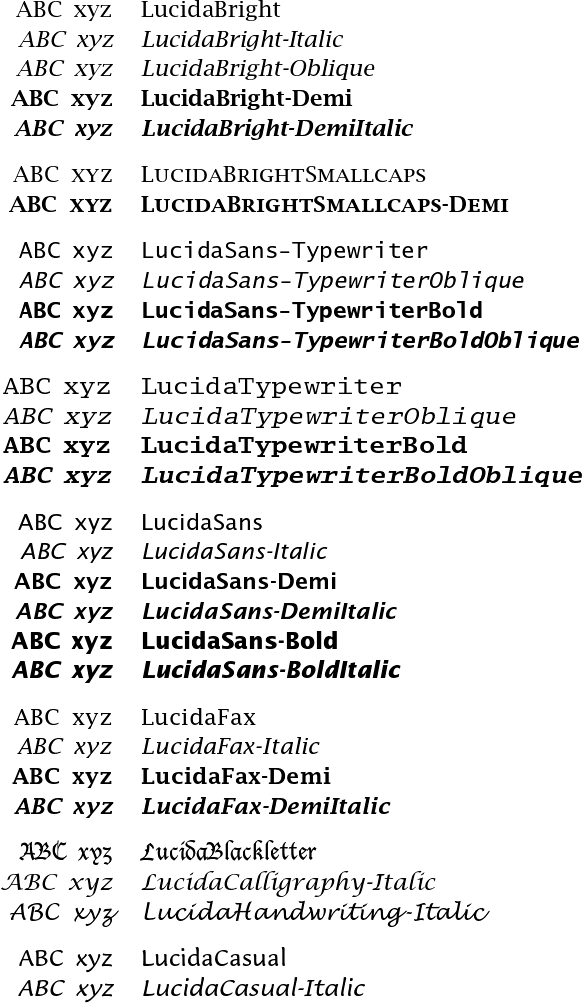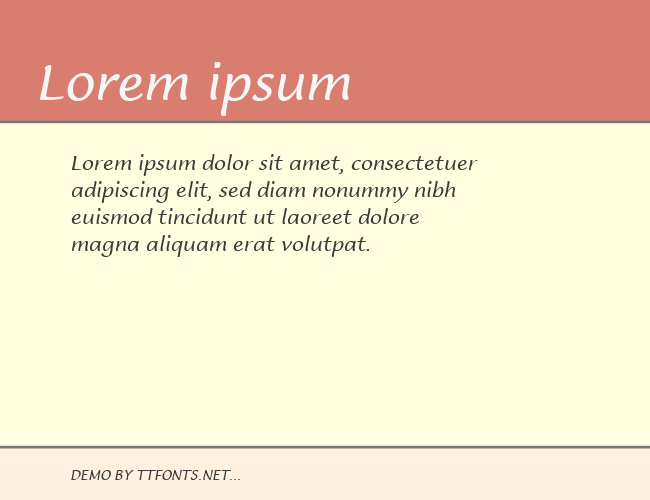
Lucida Casual Font
Lucida casual font. Lucida casual is available as a desktop font and a web font. Download lucida big casual always sunny in philadelphia font lucida casualzip downloaded 1086 times 145 kb. See preview lucida casual italic font write comments or download lucida casual italic font for free. The august 1981 seybold report article on aesthetics versus technology of digital type elicited requests for an additional article about digital typography for medium and low resolution devices so it.